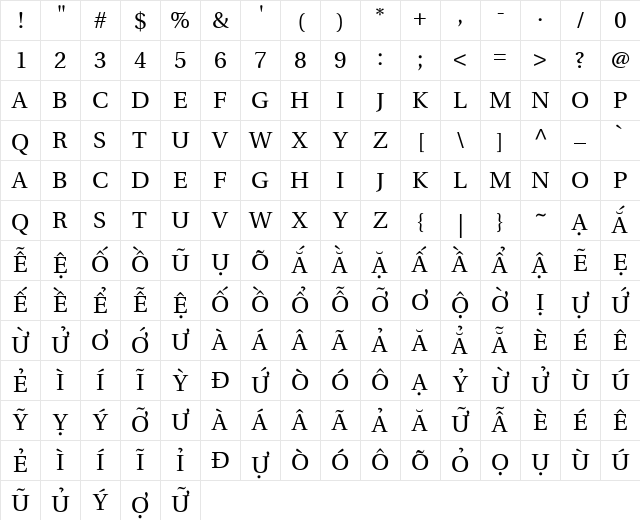
UHo 1.1 Regular
Design Context for UHo 1.1
UHo 1.1 is a composed and adaptable typeface that performs quietly and consistently across a wide range of design contexts.